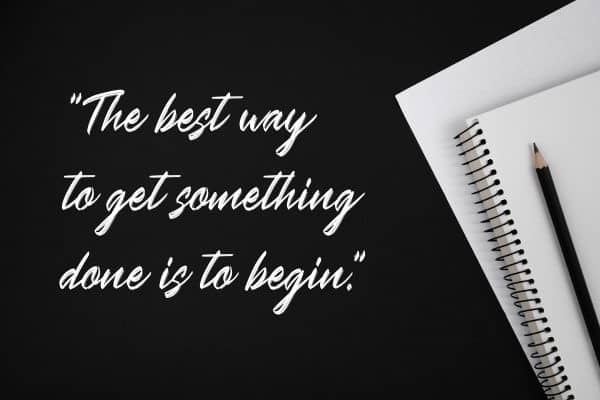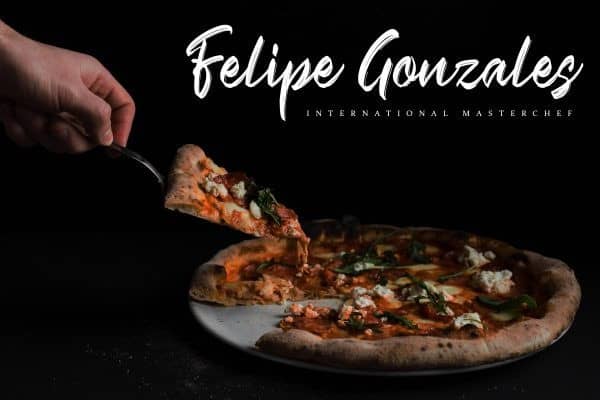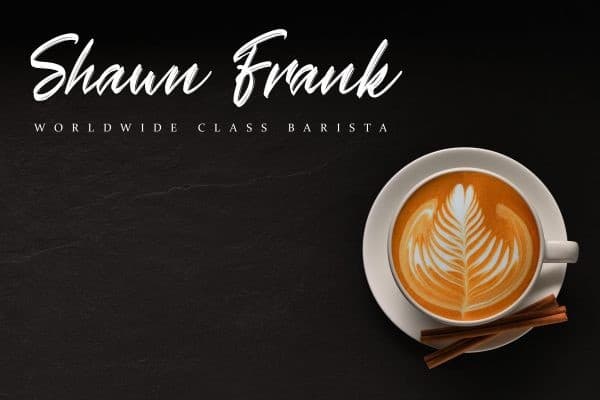
Crash Soul Brush Font
Glad to introduce you a new Crash Soul Brush Font. It inspired by brush calligraphy style this font is a fun theme very good for display. Letters are made with brushes on paper. Then scanned and carefully drawn into vector format. That is why Crash Soul has charming, authentic and relaxed characteristic more natural look to your text with a more natural look to your text. You can activate Ligature OpenType panel to make these two styles. It also has many alternatives and underlines that make your text and design more interesting.Crash Soul is perfect for homeware designs,branding projects, Logo design, Quotes product packaging.